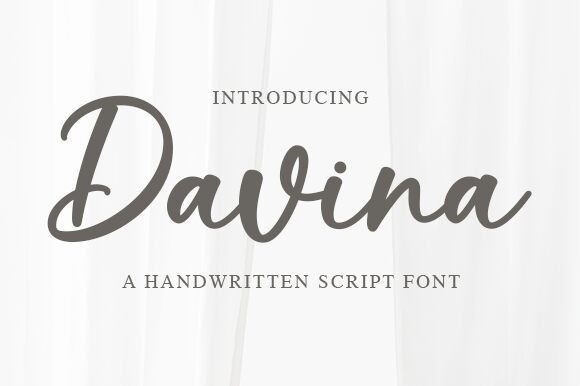
Davina
Davina is a charming semi-light handwritten font designed by Graphix Line Studio. This versatile font will add a touch of elegance and personality to any project, whether it's for branding, logo design, or social media graphics. Davina's playful curves and soft edges are perfect for creating feminine designs or adding a whimsical touch to your next project. Its semi-light weight makes it easy to read in longer texts, making it ideal for invitations, greeting cards, and even book covers. With Davina as your go-to semi-light font choice, you'll never run out of creative ways to make your projects stand out!